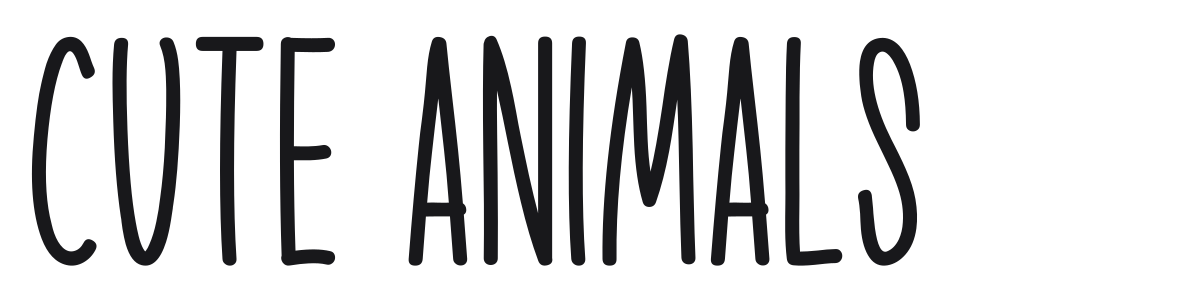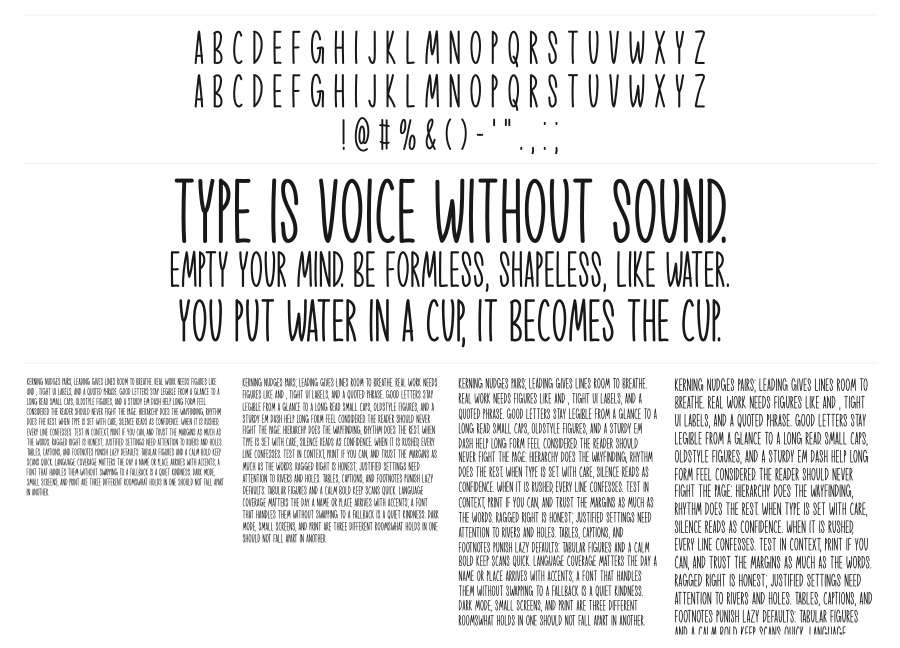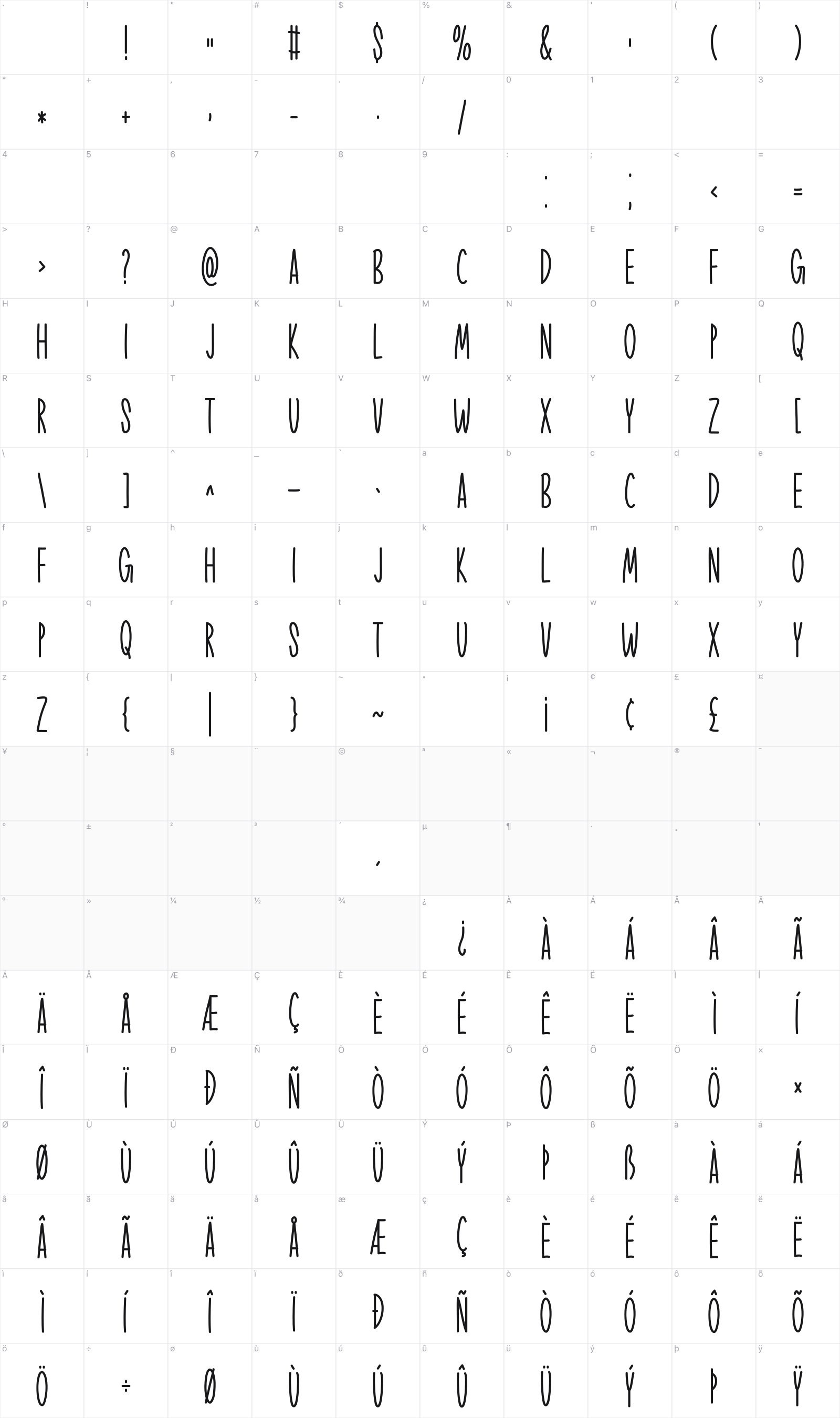
Cute Animals
Cute Animals is a bold upright handwritten display font with tall, narrow proportions and charmingly irregular strokes. The slight wobble and natural inconsistencies in stroke weight give it the feel of lettering done with a thick marker. It brings warmth and energy to children's content, packaging, and casual branding.